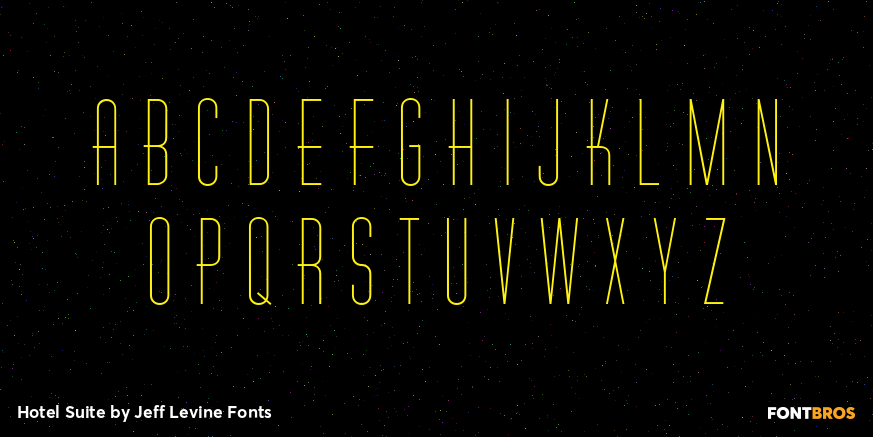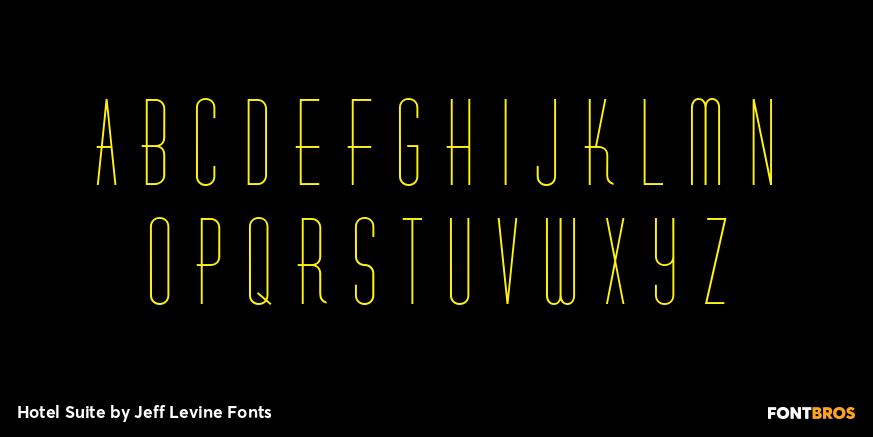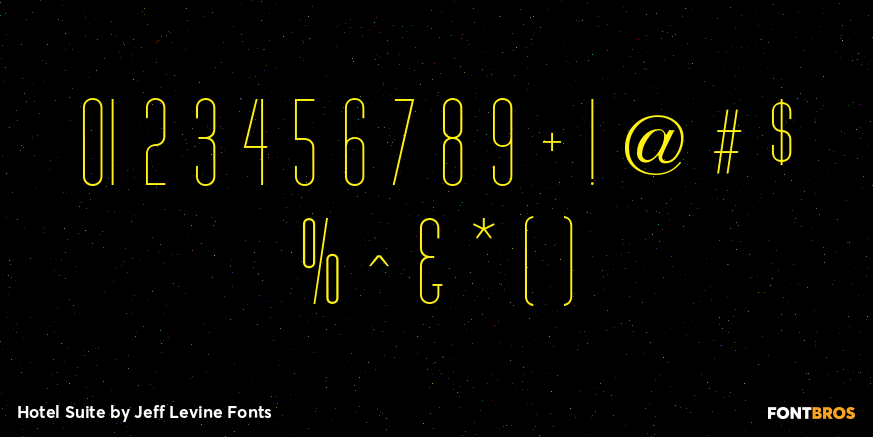
Hotel Suite
This is a digital reinterpretation of Walter Huxley's 1935 evergreen 'Huxley Vertical”, which was originally cast for American Type Founders.
A timeless classic which has been in use since the Art Deco era, this version is known as Hotel Suite JNL.
As in the original metal type, alternates for A,K,M,R,W and Y are available and can be found on their respective lower case keys.
Hotel Suite JNL is available in both regular and oblique versions.